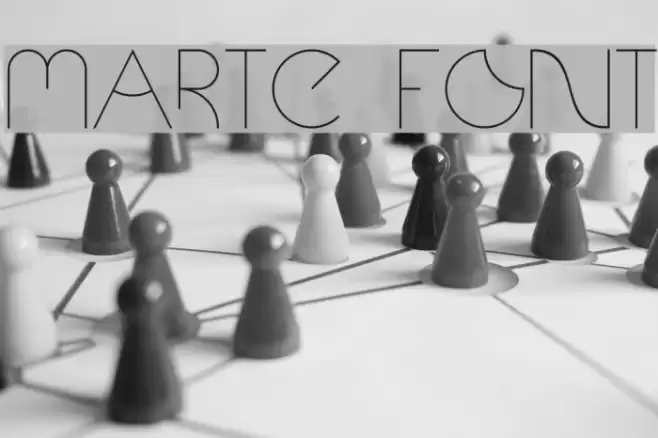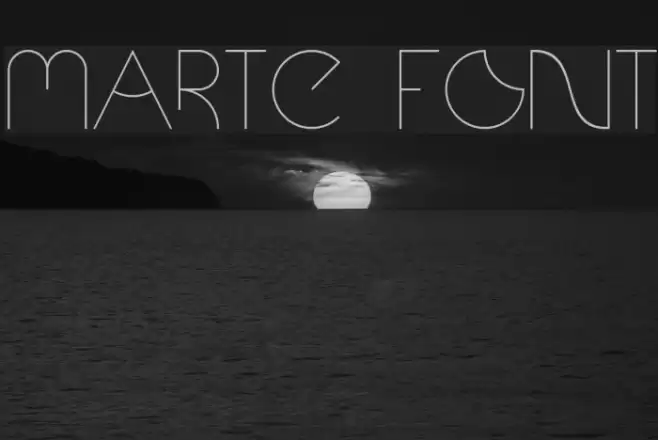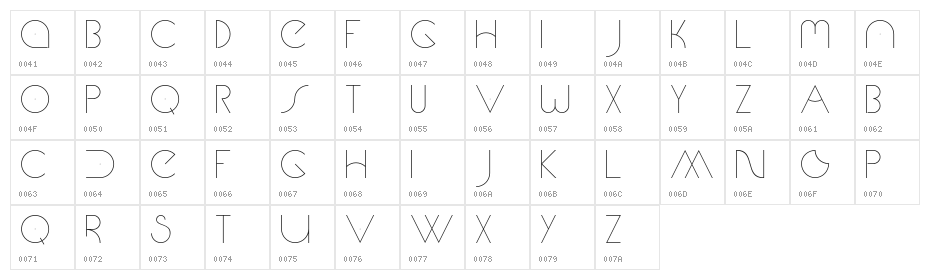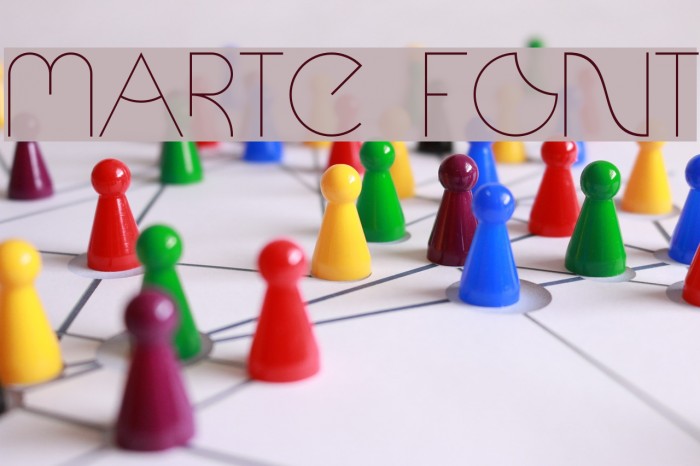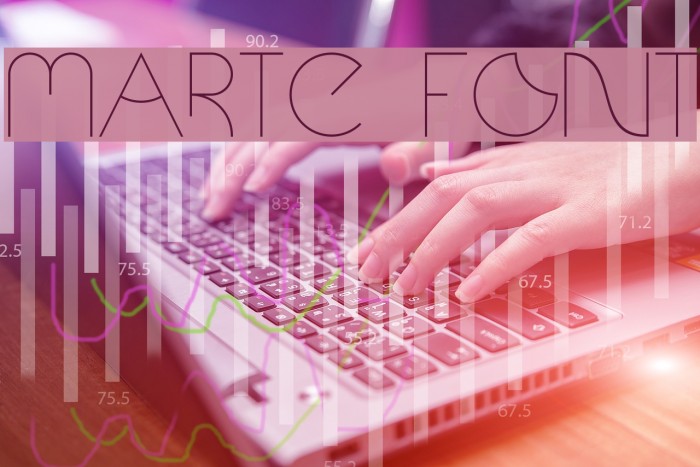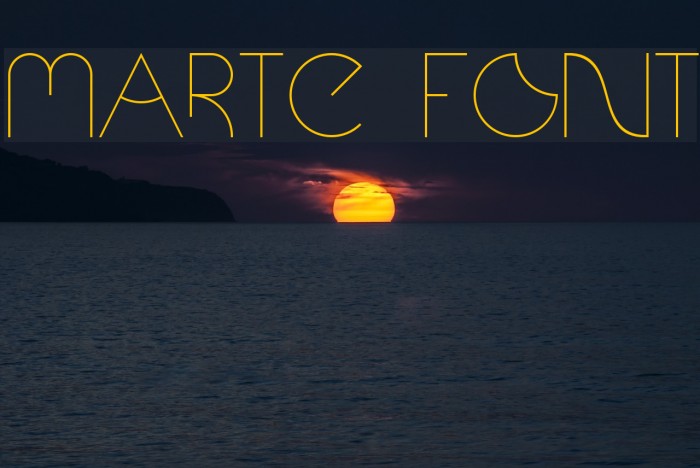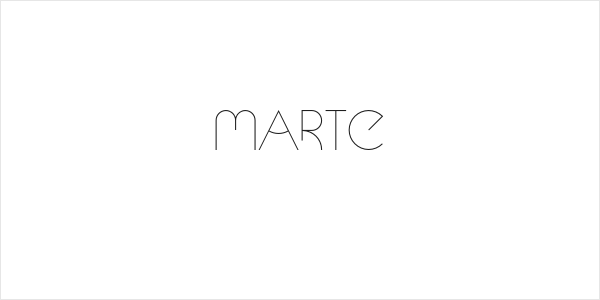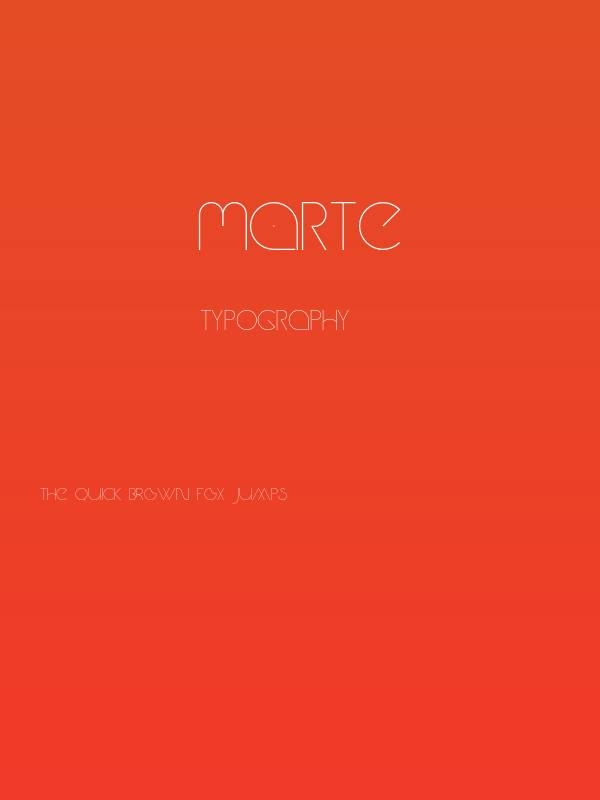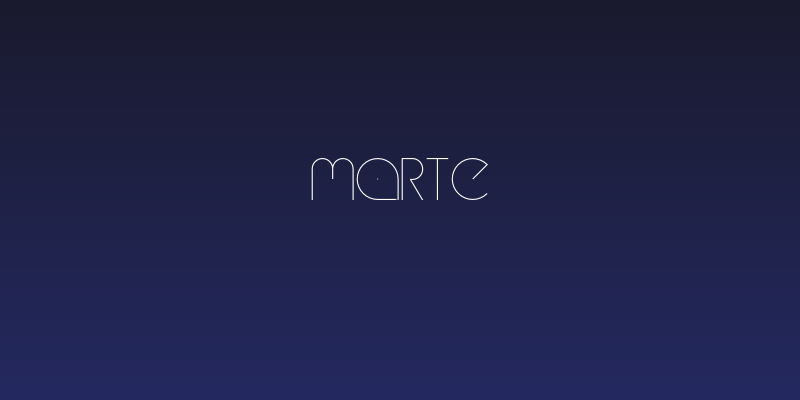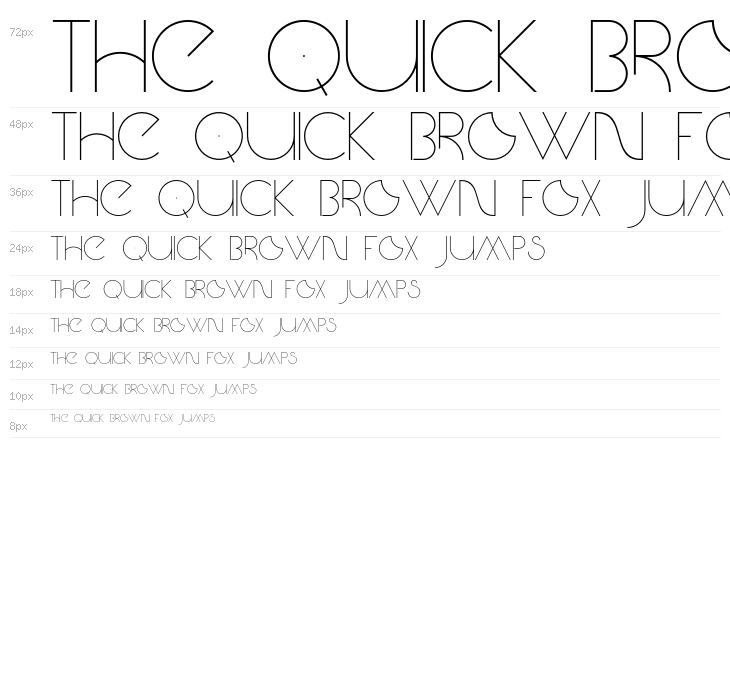
Marte Font
Marte Description
This font features a sleek and modern design with geometric elements. The characters are composed of thin lines and sharp angles, giving it a futuristic and minimalist appearance. The uppercase letters are particularly distinctive, with unique cuts and curves that create a sense of movement and dynamism. The lowercase letters maintain a consistent style, complementing the uppercase with their clean lines and open spaces. The numerals and special characters follow the same design principles, ensuring a cohesive look across all text elements. This font's overall aesthetic is both elegant and contemporary, making it suitable for a variety of design applications.
- Proposed Projects: Ideal for branding, editorial design, and digital interfaces where a modern and clean look is desired.
- Weight: Light
- Use Case: Headlines, Logos, Branding